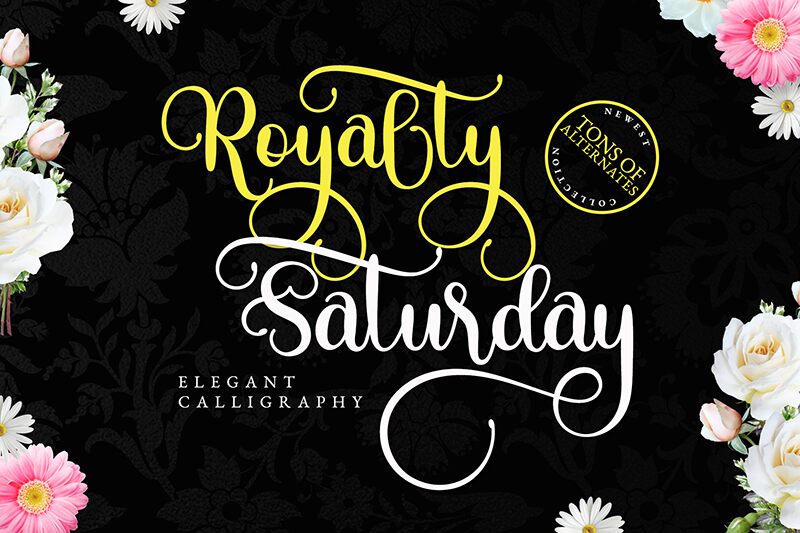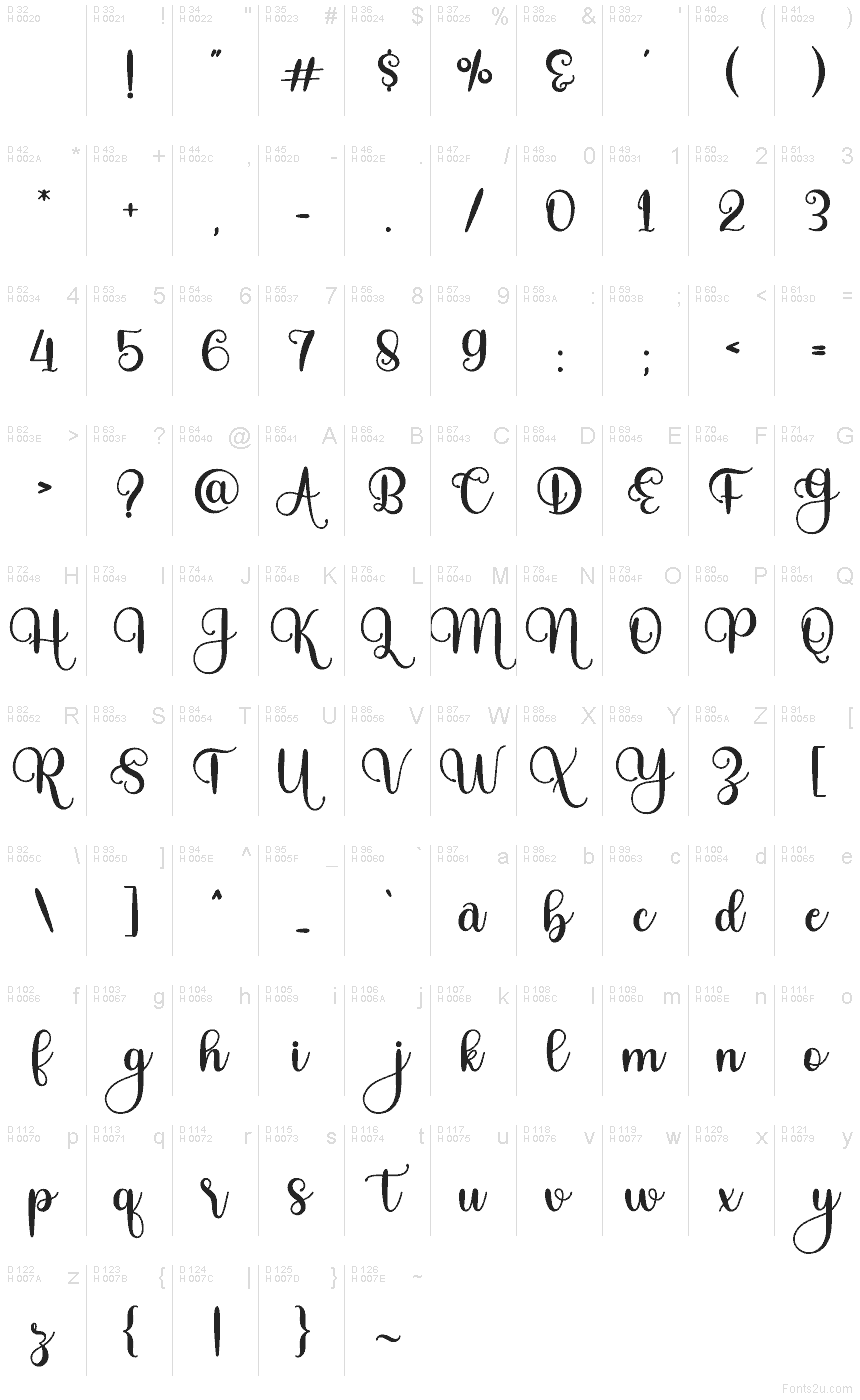
Royalty Saturday
Royalty Saturday font by Airotype Studio is a free calligraphy typeface that feels like ink brushed across thick cotton paper. Its looping swashes, gentle curves, and slightly bouncy rhythm give it a hand-lettered charm that’s romantic without being stuffy. The letters link together in smooth, flowing strokes, creating a lush, ribbon-like texture that instantly dresses up even the simplest words.
Using Royalty Saturday, you can bring a storybook sense of occasion to wedding invitations, save-the-dates, greeting cards, logos, boutique branding, product packaging, and quote graphics. This free font shines when it’s given room to breathe—use it large for headlines and pair it with a clean sans serif in small text to keep everything readable and refined.